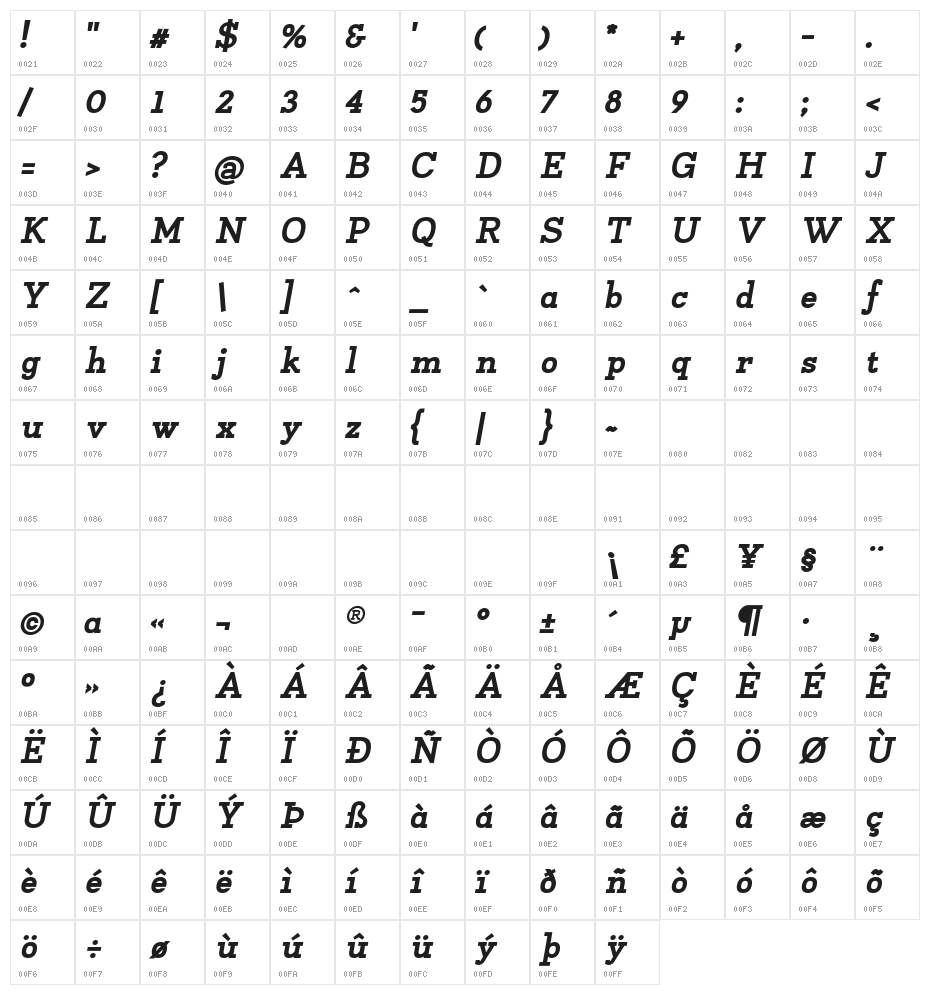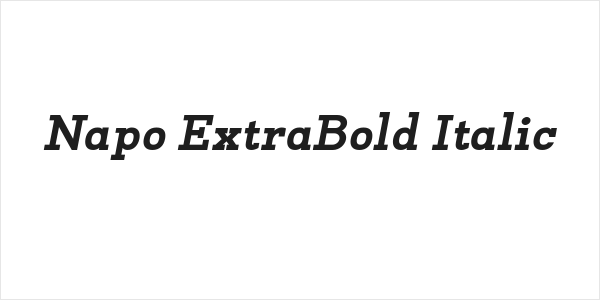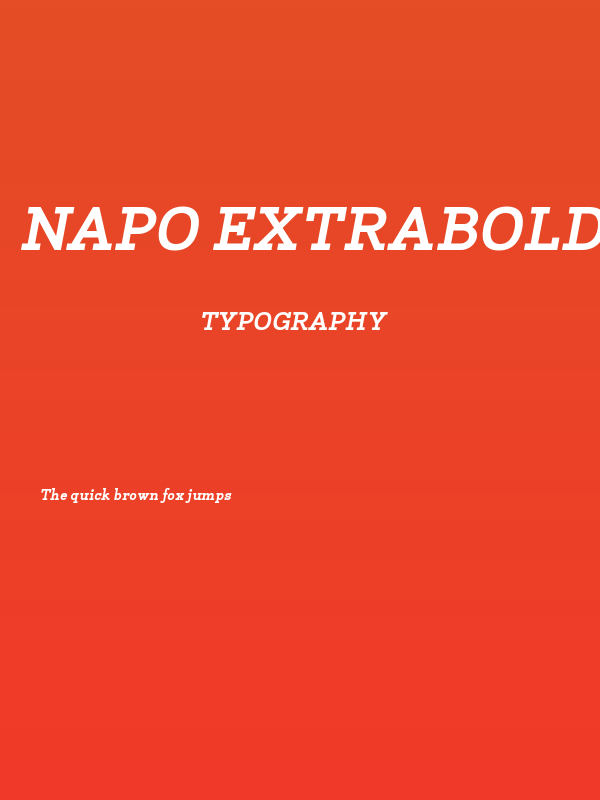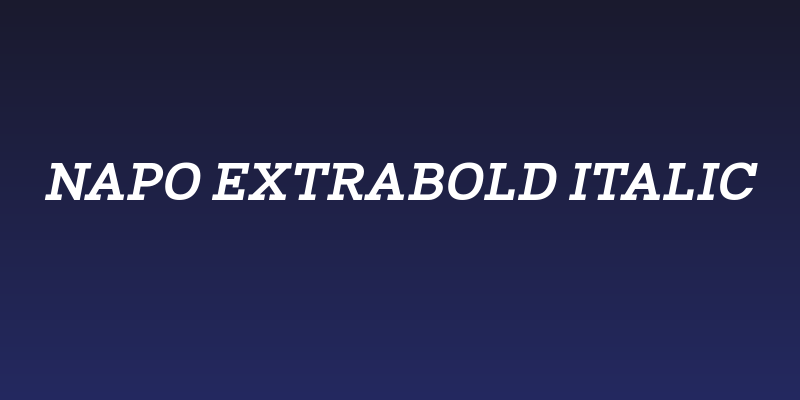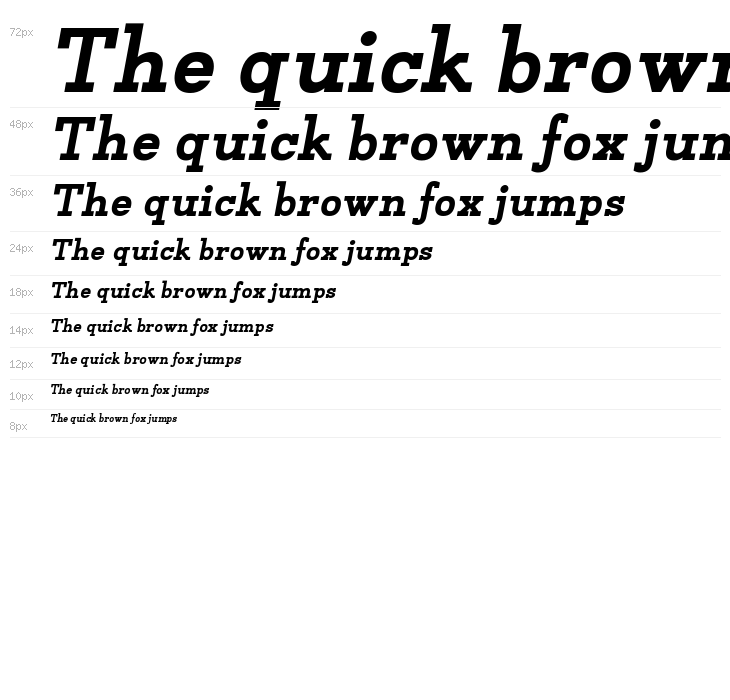
Napo ExtraBold Italic Font
Napo ExtraBold Italic Description
This font features a bold and dynamic presence with its extra-bold weight and italic style. The characters are designed with a strong emphasis on diagonal strokes, giving them a forward-leaning appearance that conveys movement and energy. The uppercase letters are robust and commanding, while the lowercase letters maintain a consistent flow, enhancing readability. The numerals are clear and distinct, ensuring they stand out in any context. Special characters are crafted with the same boldness, making them suitable for attention-grabbing designs. Overall, this font combines strength and elegance, making it ideal for impactful visual communication.
| Proposed Projects | Ideal for branding, advertising, headlines, and poster designs where a bold statement is needed. |